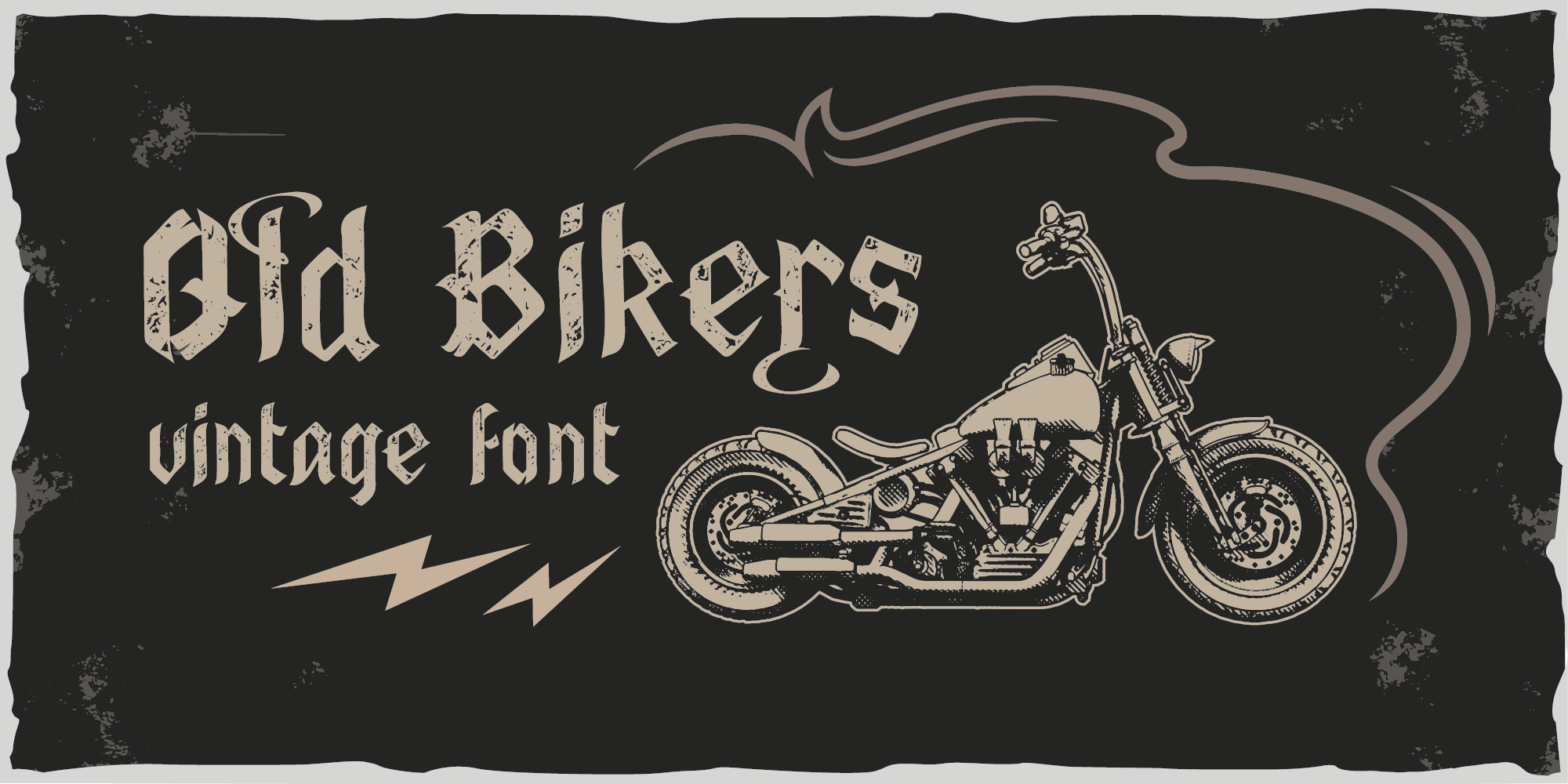
Old Bikers Font is perfect for motorcycle club branding, vintage bike restoration shop signage, classic motorcycle rally promotions, leather goods manufacturer communications, biker bar and roadhouse marketing, motorcycle heritage museum exhibits, custom bike builder portfolios, motorcycle touring company materials, vintage motorcycle parts retailer graphics, and authentic biker culture lifestyle branding.
What makes Old Bikers Font so exciting is its extraordinary ability to capture the weathered wisdom and road-tested authenticity of veteran motorcyclists through ruggedly crafted letterforms that seem worn smooth by countless miles of highway wind and blessed with the kind of hard-earned credibility that comes only from decades of riding through all weather conditions and understanding that true biker culture is built on brotherhood, freedom, and respect for the open road. This font embodies the essence of motorcycle heritage and road warrior wisdom, featuring weathered characters that appear carved from the same materials that build legendary motorcycles and marked by the same honest wear patterns that develop on well-traveled bikes ridden by riders who measure their lives in miles rather than years. The authentically aged letter shapes create an atmosphere of road-tested authority and biker brotherhood, making every word feel like it carries the dust of a thousand highways and the promise of discovering the freedom that only comes from the wind in your face and the endless ribbon of asphalt stretching toward the horizon.
The Old Bikers Font family includes Light, Regular, Medium, Bold, and Weathered variations, along with motorcycle symbols and road-tested decorative elements. Each style maintains the font's distinctive biker character while offering versatility for different motorcycle applications, from gentle road story text to commanding rally headlines that celebrate the enduring appeal of motorcycle culture and the brotherhood of the open road.
This authentic typeface brings genuine biker culture aesthetics to contemporary design projects. The Old Bikers Font Free Download offers designers an invaluable resource for creating memorable brand identities that communicate road authenticity, motorcycle heritage, and biker brotherhood. Whether you're developing motorcycle business branding, designing rally promotional materials, or creating biker lifestyle communications, this font delivers unmatched road credibility and motorcycle appeal.
The expertly weathered letterforms in Old Bikers Font feature natural wear patterns and road-tested proportions that mirror the honest aging of well-maintained motorcycles and the authentic character that develops in riders who have earned their stripes through years of responsible riding and commitment to the values that define genuine biker culture. Each character has been designed to maintain perfect readability while expressing the hard-earned wisdom and road-tested reliability that separate experienced riders from weekend posers. The font's distinctive personality makes it ideal for applications requiring genuine biker authority and motorcycle culture credibility.
Motorcycle industry and biker culture professionals appreciate how Old Bikers Font effortlessly communicates road authenticity, motorcycle heritage, and biker brotherhood while appealing to riders and enthusiasts who understand that true biker culture is about more than image—it's about freedom, responsibility, brotherhood, and the shared love of the open road that unites riders across all backgrounds and generations. The comprehensive character set includes motorcycle symbols, road decorations, biker elements, and extensive international language support, ensuring global compatibility while preserving its distinctive old bikers identity. This makes it an invaluable resource for motorcycle dealers, custom shops, biker rallies, and any organization seeking typography that embodies the fundamental biker values of freedom, brotherhood, and the kind of authentic road culture that teaches riders that the journey is more important than the destination, that respect must be earned through actions rather than words, and that the motorcycle community is a family bound together by shared passion for the machines that transform ordinary transportation into extraordinary adventures on the endless highways where freedom lives and brotherhood thrives among those who choose to experience life from the saddle of a motorcycle rather than the seat of a cage.